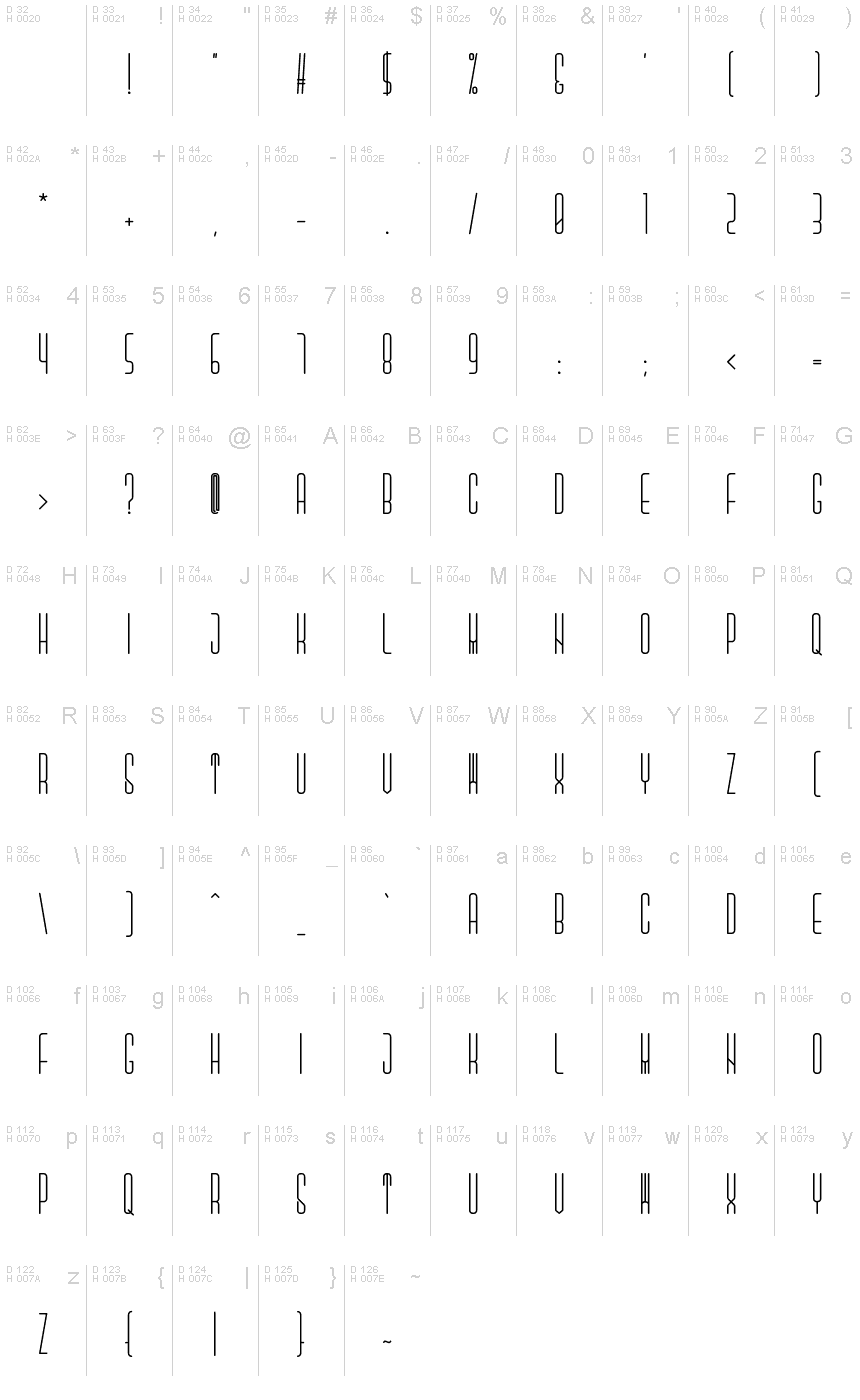
Desolation-Regular
Desolation is a narrow, all caps, futuristic sans-serif font, which serves as a reminder that we can find solace in design despite the adversity we are facing.